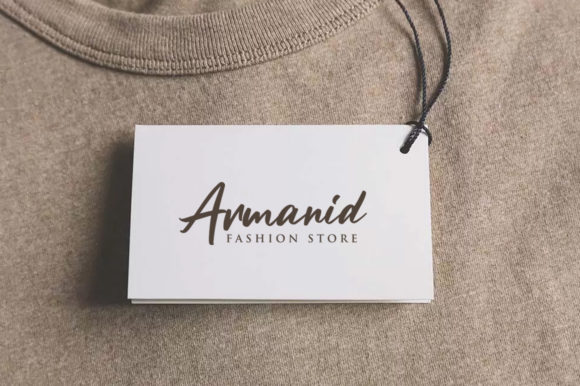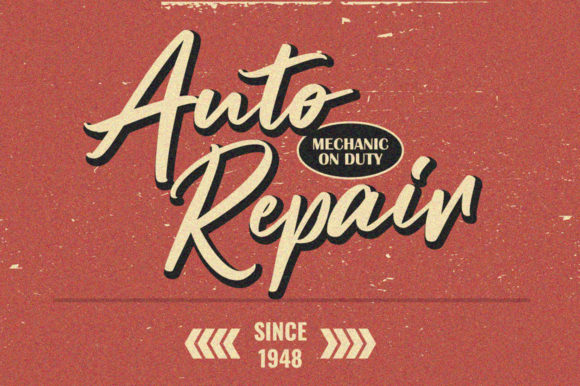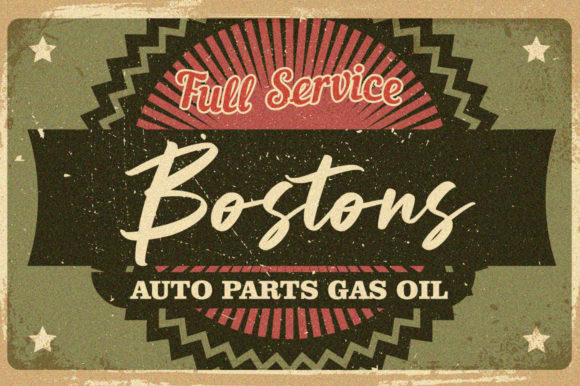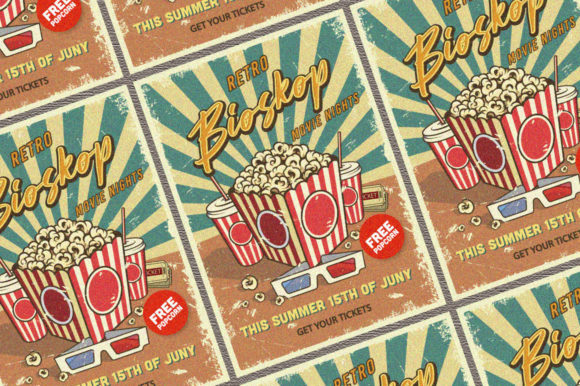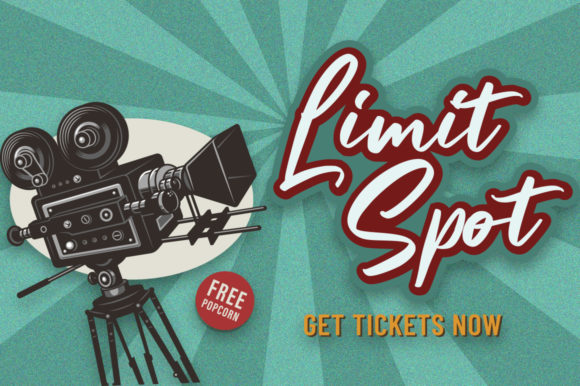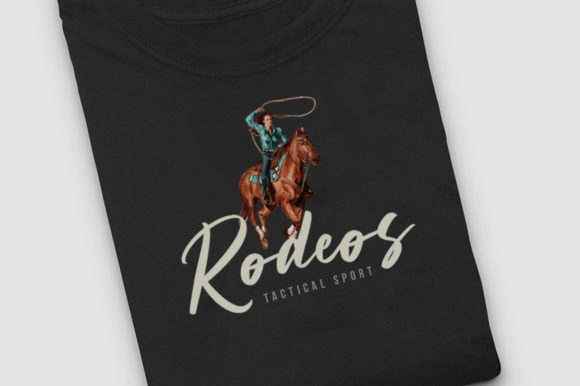
Introducing Brushter Font: The Retro-Styled Handwritten Font for Creative Designs
Are you a designer or crafter looking for a unique and timeless font to elevate your creative designs? Look no further than Brushter Font, a retro-styled handwritten font that’s relaxed, elegant, and perfect for bringing your designs to life. In this article, we’ll dive into the world of Brushter Font, exploring its features, benefits, and uses, as well as provide tips and inspiration for incorporating it into your designs.
What is Brushter Font?
Brushter Font is a carefully crafted, retro-styled handwritten font that’s designed to evoke a sense of nostalgia and timelessness. With its relaxed and effortless vibe, Brushter Font is perfect for designers and crafters who want to add a touch of personality and whimsy to their designs. Whether you’re working on a branding project, a craft project, or simply want to add some flair to your digital creations, Brushter Font is the perfect choice.
Key Features of Brushter Font
- Retro-styled: Brushter Font boasts a classic, retro aesthetic that’s reminiscent of vintage typography.
- Handwritten: With its handwritten feel, Brushter Font adds a touch of personality and humanity to your designs.
- Relaxed and timeless: Brushter Font’s relaxed vibe makes it perfect for designs that require a laid-back, effortless feel.
- Versatile: Brushter Font can be used for a wide range of design projects, from branding and advertising to crafting and DIY projects.
Benefits of Using Brushter Font
So why choose Brushter Font for your designs? Here are just a few benefits of using this amazing font:
- Adds personality: Brushter Font’s unique, handwritten style adds a touch of personality and whimsy to your designs.
- Evokes nostalgia: Brushter Font’s retro aesthetic can evoke a sense of nostalgia and timelessness, making it perfect for designs that require a vintage or classic feel.
- Easy to read: Despite its handwritten feel, Brushter Font is surprisingly easy to read, making it perfect for body text and headlines.
- Highly versatile: Brushter Font can be used for a wide range of design projects, from digital designs to print materials.
Using Brushter Font in Your Designs
So how can you use Brushter Font in your designs? Here are a few ideas to get you started:
- Branding and advertising: Use Brushter Font to create eye-catching logos, advertisements, and marketing materials that stand out from the crowd.
- Crafting and DIY projects: Add a touch of personality to your crafting and DIY projects, such as handmade cards, gift tags, and scrapbooking pages.
- Digital designs: Use Brushter Font to add a touch of whimsy to your digital designs, such as social media graphics, blog posts, and website headers.
- Print materials: Use Brushter Font to create stunning print materials, such as brochures, flyers, and posters.
Tips for Getting the Most Out of Brushter Font
Here are a few tips for getting the most out of Brushter Font:
- Experiment with different colors: Brushter Font looks amazing in a range of colors, from bold and bright to soft and pastel.
- Play with font sizes: Brushter Font looks great in a range of font sizes, from large and bold to small and delicate.
- Combine with other fonts: Brushter Font pairs perfectly with other fonts, so don’t be afraid to experiment with different font combinations.
- Add texture and graphics: Add texture and graphics to your designs to give them an extra boost of personality and whimsy.
| Font Name | Brushter Font |
| Author | vultype |
In conclusion, Brushter Font is a retro-styled handwritten font that’s perfect for designers and crafters who want to add a touch of personality and whimsy to their designs. With its relaxed and timeless vibe, Brushter Font is highly versatile and can be used for a wide range of design projects. Whether you’re working on a branding project, a craft project, or simply want to add some flair to your digital creations, Brushter Font is the perfect choice. So why wait? Download Brushter Font today and start bringing your designs to life!